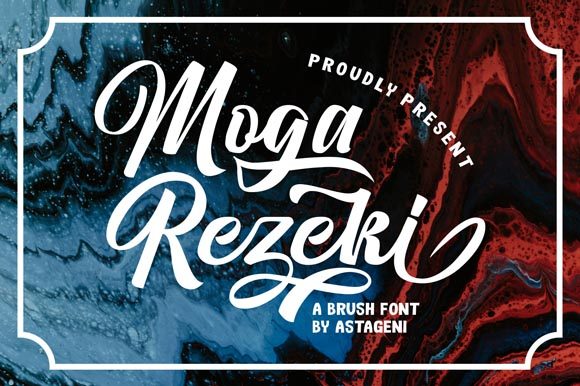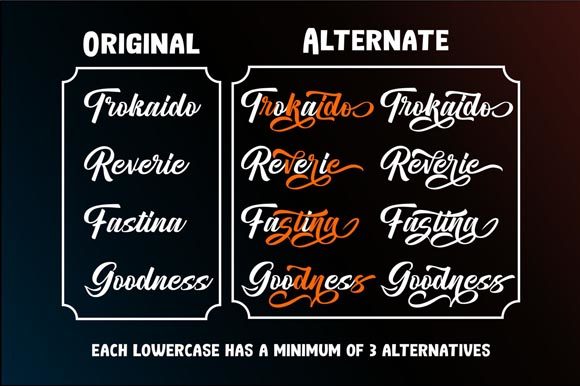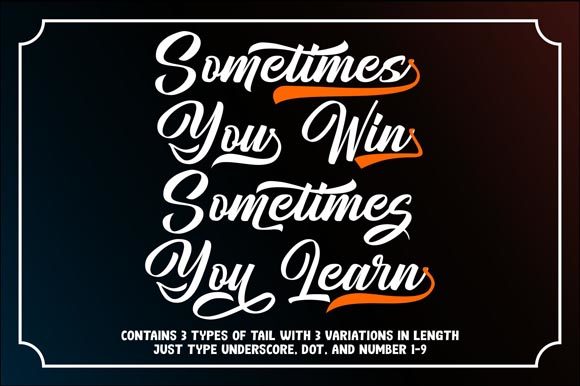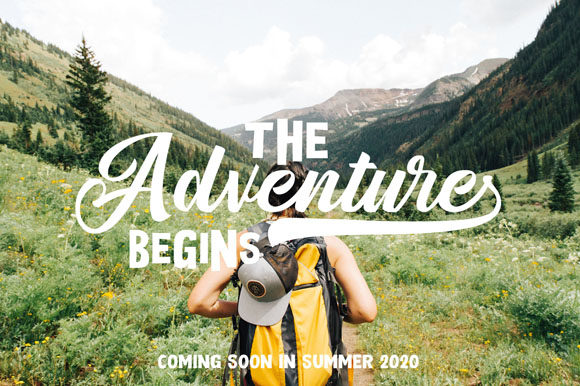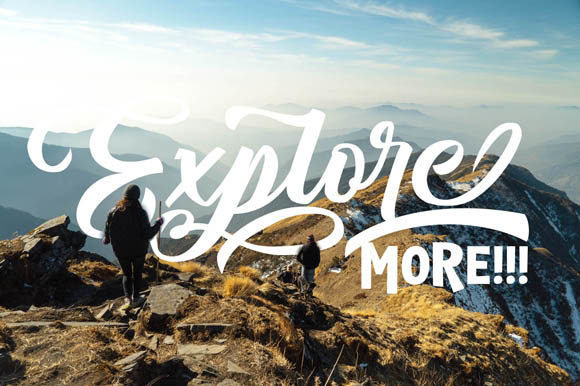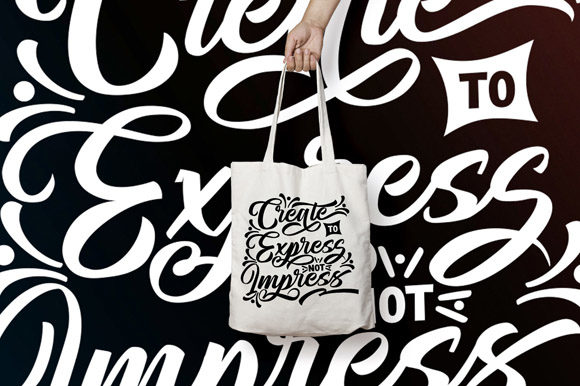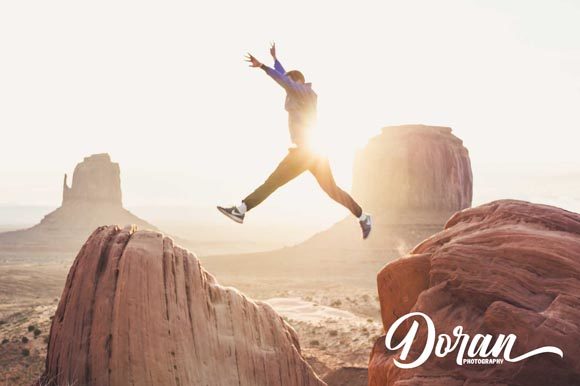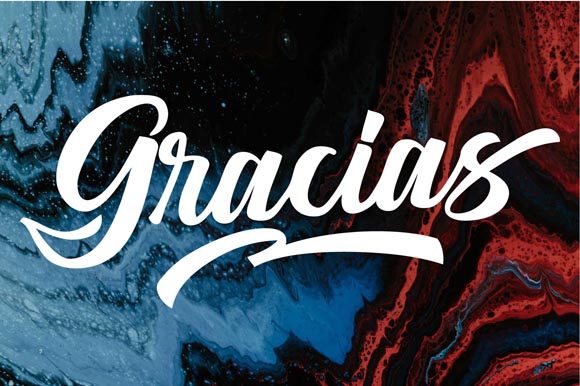
Moga Rezeki Duo Font
About Moga Rezeki Duo Font
Moga Rezeki is a playful and dynamic font duo that brings together two fun and sweet script fonts. Fall in love with its vibrant look!